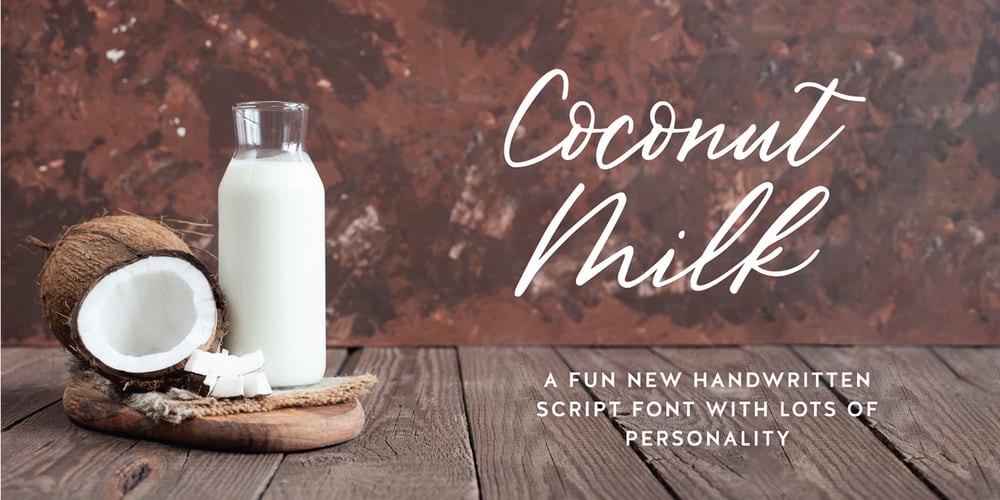
Coconut Milk Font Family was designed by Susan Brand and published by Susan Brand Design. Coconut Milk contains 1 styles and family package options. Coconut Milk Script is a fun new handwritten font with lots of personality.It contains multi-lingual support with accented characters for international Western European users, as well as a special double “tt” ligature and stylistic alternative.